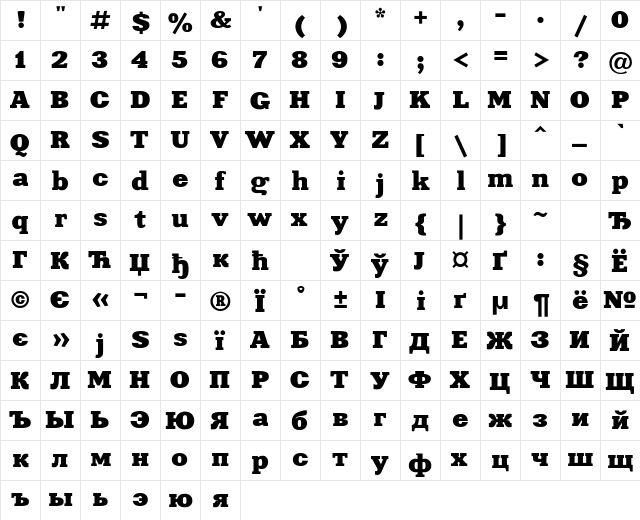
XeniaExtended Regular Font Preview
XeniaExtended Regular
Design Context for XeniaExtended Typeface
XeniaExtended is a composed and adaptable typeface that performs quietly and consistently across a wide range of design contexts.